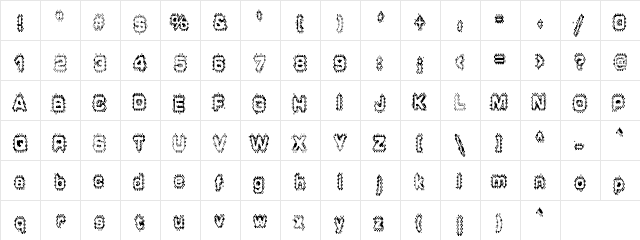
Grunge Puddles Regular
Design Context for Grunge Puddles Typeface
Grunge Puddles trades polish for personality, using distressed and eroded forms to bring grit and attitude to creative work.
Suited to punk-influenced zines, underground music branding, streetwear, and raw, anti-corporate design.
Pro Tip: Pair Grunge Puddles with intentionally raw or lo-fi design elements. Fighting against it with overly polished surroundings will undermine its personality.